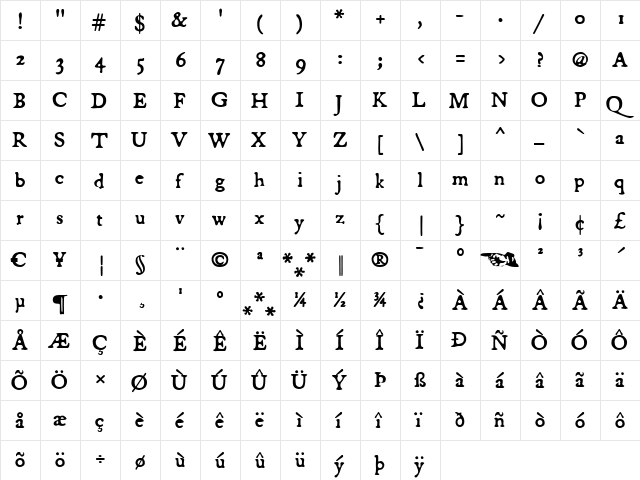
Broadsheet Regular
Design Context for Broadsheet Typeface
Broadsheet offers clean, dependable letterforms without strong stylistic allegiance, making it a practical choice for designers who need flexibility.
Pro Tip: Pair Broadsheet with a font of contrasting weight or personality to build a more expressive typographic hierarchy.